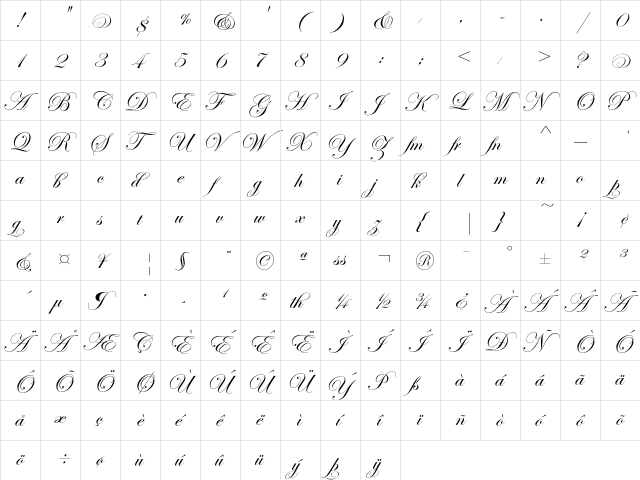
EdwardianScriptEF RegularA
Design Context for EdwardianScriptEF Typeface
EdwardianScriptEF brings a calligraphic fluidity to the page — its connecting strokes and expressive curves give it an unmistakably human quality.
Font Pairing: Combine EdwardianScriptEF with a simple geometric sans for maximum contrast — the tension between flowing curves and clean structure is a classic typographic pairing.
Pro Tip: Pair EdwardianScriptEF with a clean sans-serif for supporting text. The contrast between fluid script and geometric structure creates an elegant typographic hierarchy.